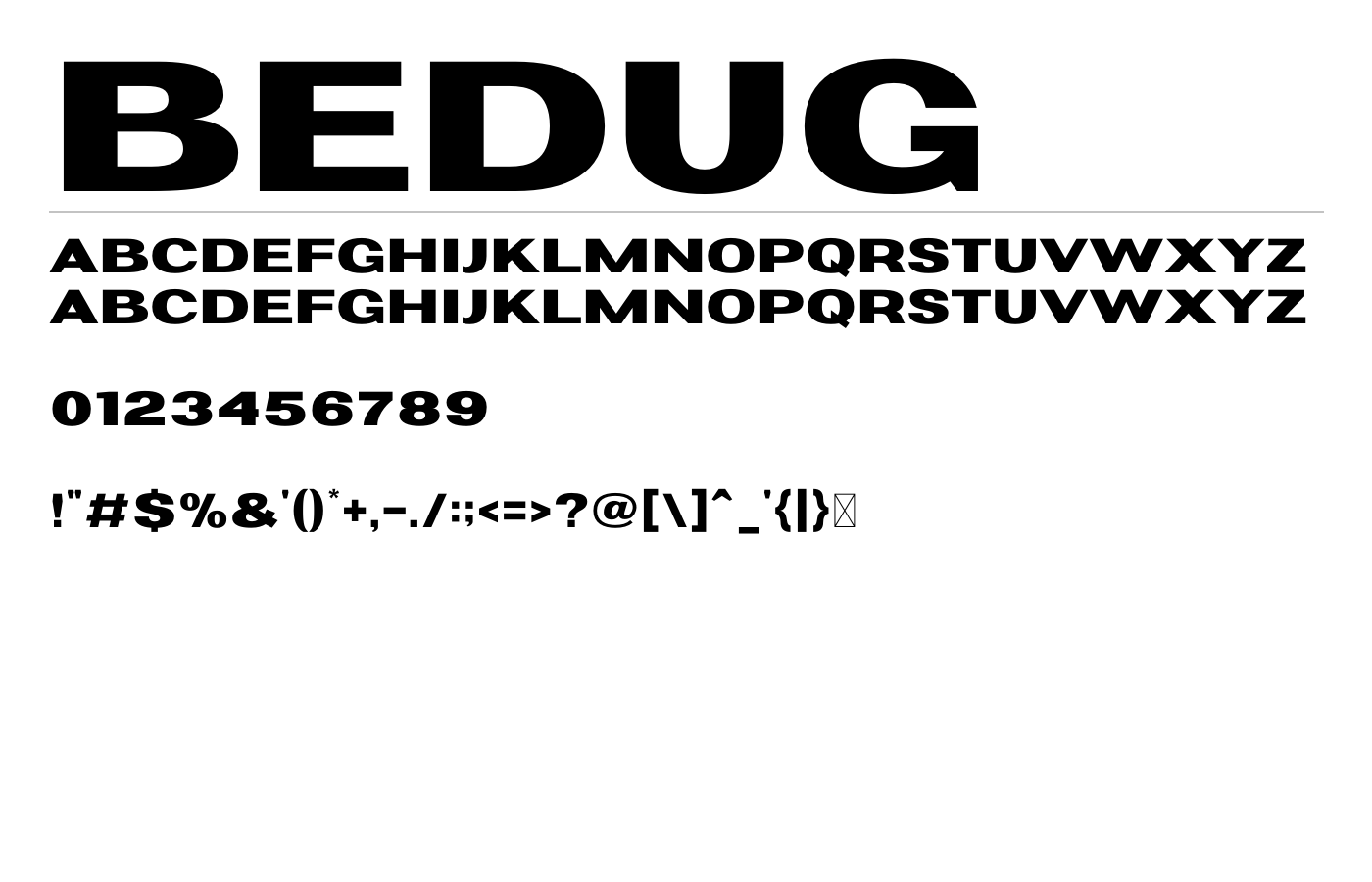
Bedug Font is a bold, heavy-weight sans serif typeface with a strong, compact structure and high-impact presence. Its thick strokes, uniform width, and straightforward geometric shapes make it perfect for powerful headlines, branding, and display use where clarity and boldness are key. Ideal for logos, posters, and packaging, it communicates strength and confidence with a modern, no-nonsense feel.
Bedug Font
About Bedug Font
| Font family | Bedug Font |
| Designer | Brandsemut |